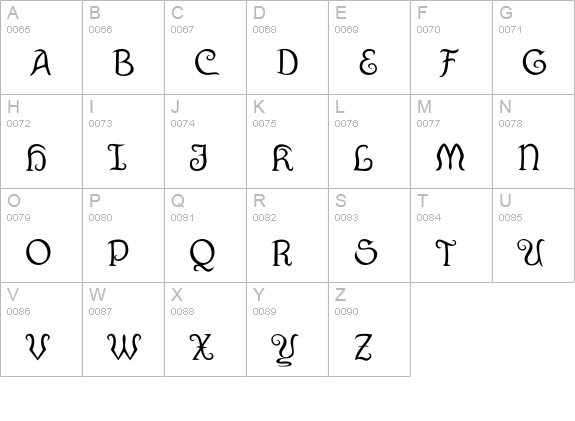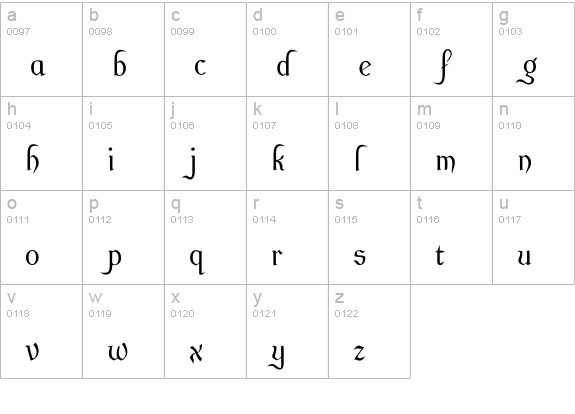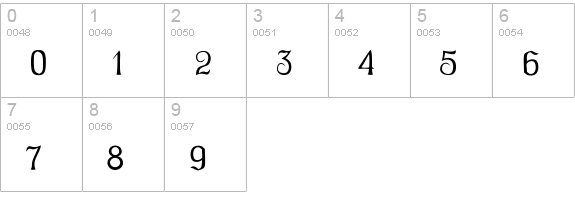
Griseldis Font Details
Griseldis font is a stunning typeface that exudes elegance and sophistication. Its sleek lines and graceful curves make it perfect for adding a touch of class to any design project. Whether you're creating invitations, logos, or branding materials, Griseldis font will elevate your work to the next level. And the best part is, it's completely free to download at FontsMarket.com! Don't miss out on this beautiful font that will make your creations stand out from the crowd.